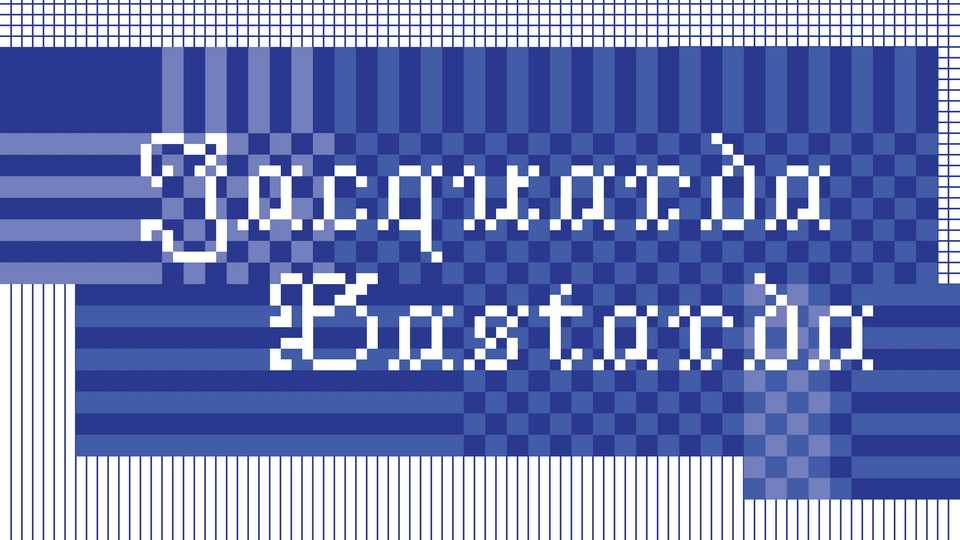
Download Jacquarda Bastarda font, an expanded revival typeface from a Bastarda-esque Victorian needlepoint alphabet designed in Berlin by Heinrich Kuehn circa 1880.